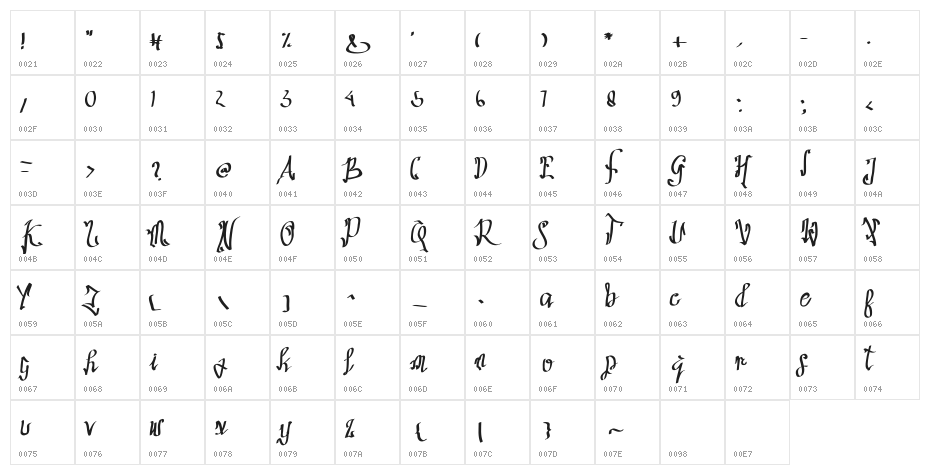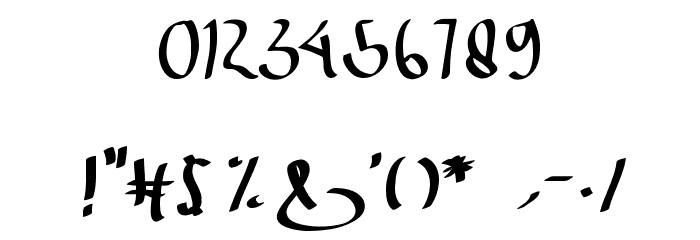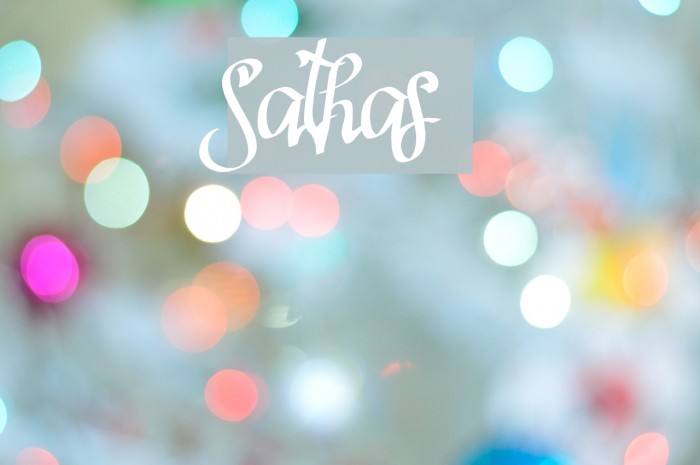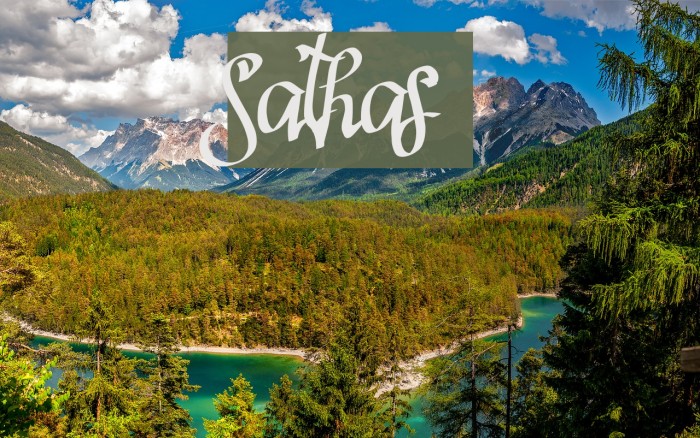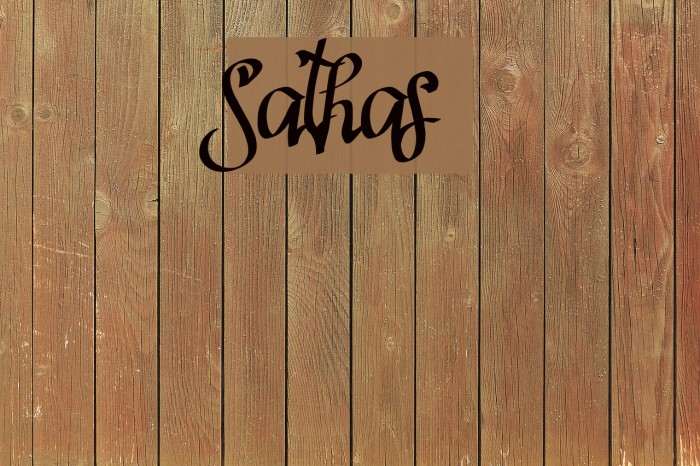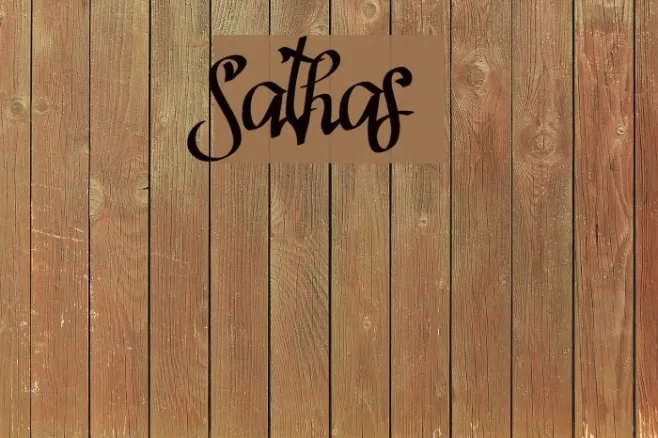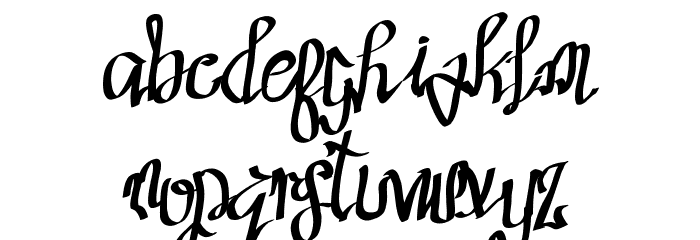
Sathas Font
Sathas Description
This font features a highly decorative and artistic style, characterized by its intricate and flowing letterforms. The uppercase letters exhibit a bold and dramatic flair, with exaggerated curves and flourishes that give it a unique and expressive appearance. The lowercase letters maintain a similar style, with a slightly more restrained design that enhances readability while preserving the overall aesthetic. The numbers and special characters are crafted with the same attention to detail, ensuring consistency throughout the font. This font's distinctive style makes it ideal for creative and eye-catching designs.
| Proposed Projects | Ideal for creative projects such as posters, album covers, and branding materials that require a bold and artistic touch. |